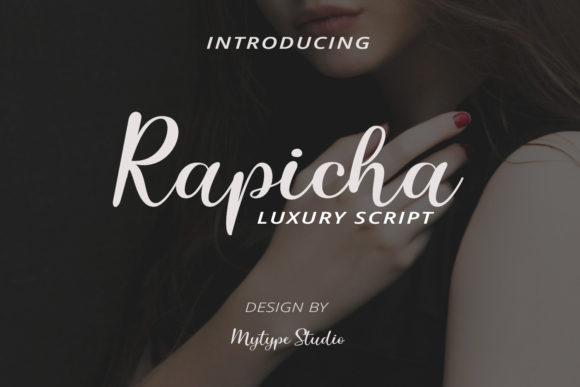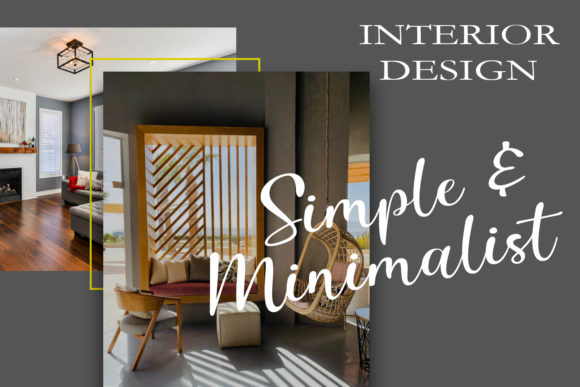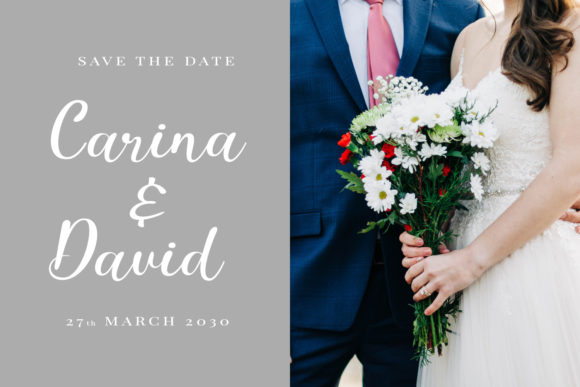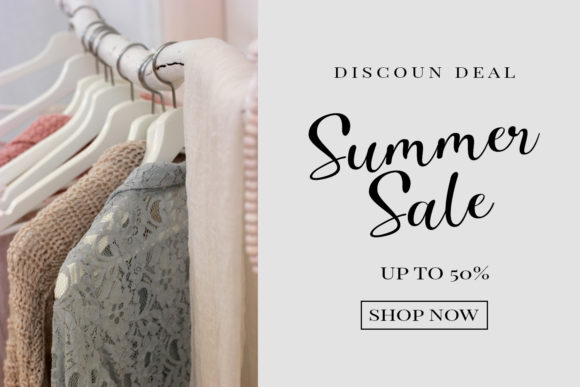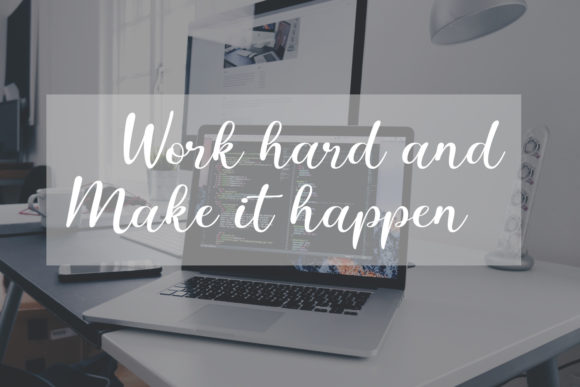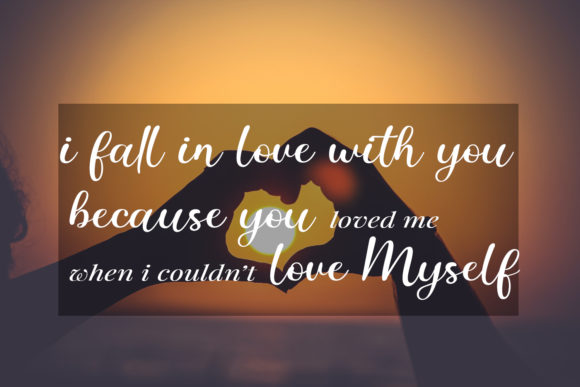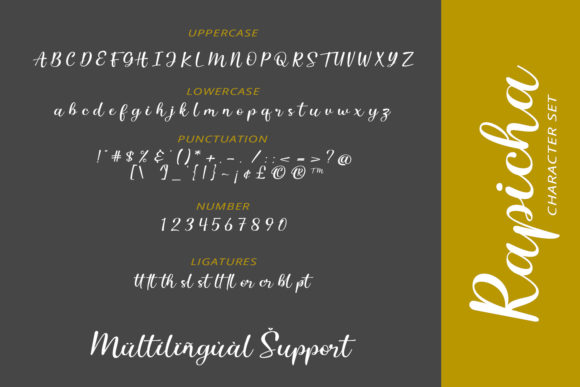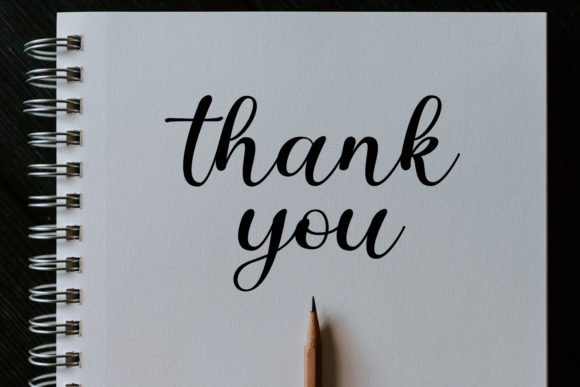
Rapicha Font
About Rapicha Font
is an exquisite handwritten font, masterfully designed to become a true favorite. It maintains its classy calligraphic influences while feeling contemporary and fresh.
Rapicha is perfect for branding projects, logo, wedding designs, social media posts, advertisements, product packaging, product designs, label, photography, watermark, invitation, stationery and any projects that need handwriting taste.